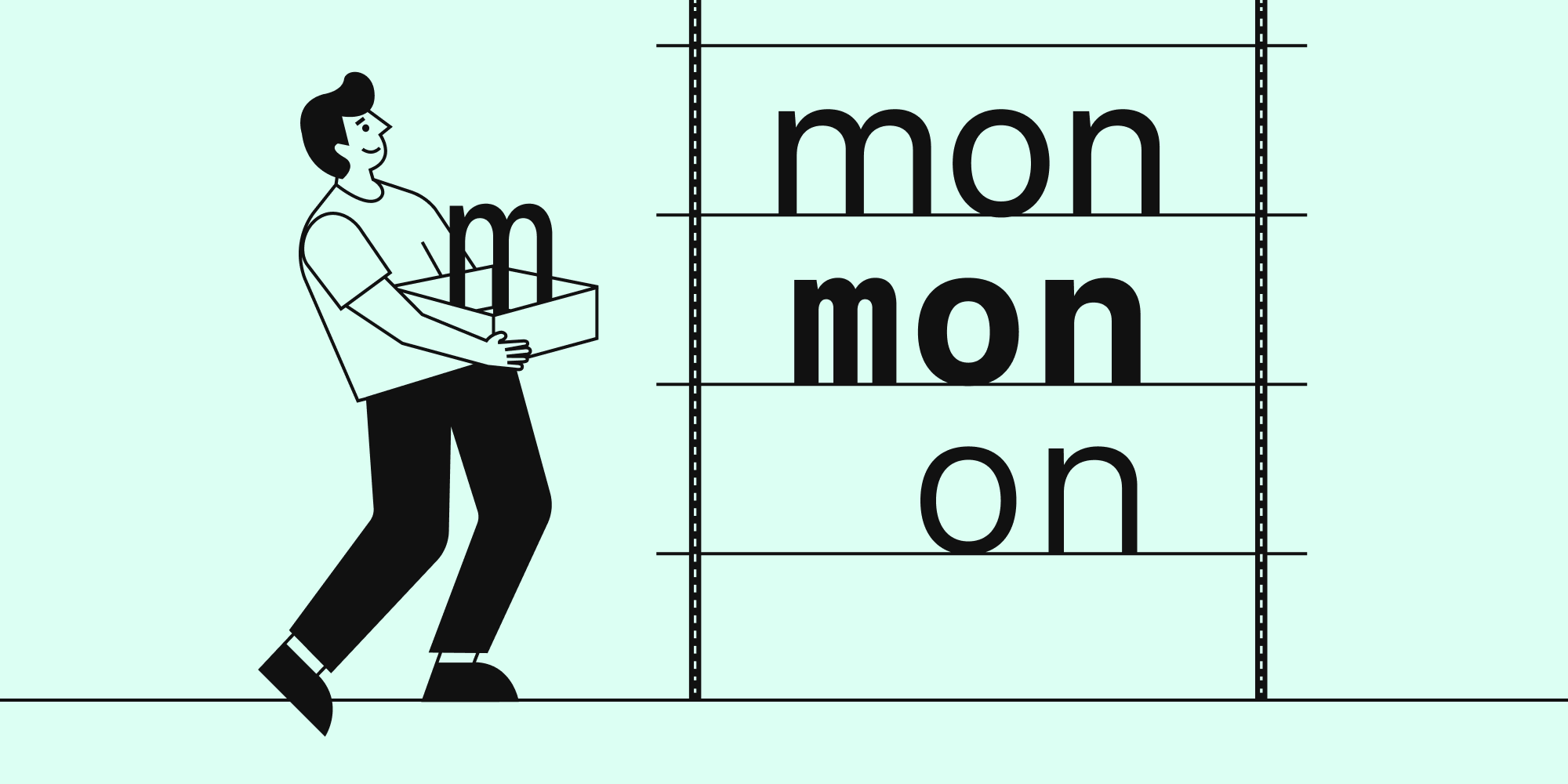
When to Set Type in Monospace
Fixed-width typefaces and the contexts where they perform best.
Every typeface communicates more than its letterforms. It carries a register — an expectation about what kind of information follows. Monospace typefaces carry a specific one: precision, system, and machine logic. That texture is a design asset. Used correctly, it creates functional separation and visual contrast. Used carelessly, it slows reading and signals the wrong context entirely.
In a monospace typeface, every character occupies the same horizontal width. The letter i takes the same space as m. This creates a rigid, grid-like texture that is fundamentally different from proportional type.
Proportional typefaces assign each character a width appropriate to its form. A narrow i receives narrow sidebearings; a wide m receives more. The result is denser, more efficient text suited to continuous reading. Monospace trades that efficiency for something else: predictable, column-aligned output where every character maps to the same horizontal position.
Two glyph specimens of the lowercase 'm' shown side by side inside metric grids.
The same glyph behaves differently depending on the spacing model. In proportional type, the advance width of a character is determined by its optical extent, the space it naturally needs. In monospace, the advance width is fixed across the entire character set. The glyph must fit within that unit regardless of its natural shape.
This is why narrow characters like i, l, and 1 appear to have excessive space around them in monospace settings, and why wide characters like m and w often feel compressed. The fixed-width constraint is a typographic contract: all characters are equal citizens regardless of how much space they would naturally occupy.
Proportional vs. Monospace: The Width Data
The word "fouls" set twice — once proportionally (top), once in monospace (bottom)
This slide makes the structural difference measurable. In the proportional setting, l receives 232 units while o receives 556. In the monospace setting, every character receives 600 units. The result is the distinctive texture monospace is known for: an even, mechanical rhythm that does not accelerate or slow down based on letter shape.
That uniformity is exactly what makes monospace reliable for code, data tables, and any context where column alignment matters. It is also what makes it unsuitable for body text, where word-shape recognition, the silhouettes readers scan before processing individual letters — depends on the varying widths of proportional type.
Code and Data Display
Two code block specimens set in Fonetika Mono.
Monospace is the standard for code editors, terminal interfaces, and data tables where character alignment matters. Each character maps to a fixed column, making indentation, alignment, and pattern recognition reliable.
When you indent code by two characters, those two characters must occupy a consistent, predictable horizontal distance. Proportional type breaks that contract. Misaligned indentation in a language like Python is not merely aesthetic — it is a syntax error. The fixed-width contract is functional, not stylistic.
Data tables with numeric columns benefit for the same reason. Aligned decimal points and consistent digit widths make comparison faster and errors more visible. This is why financial and scientific applications default to monospace for data display even when the rest of the interface uses a proportional face.